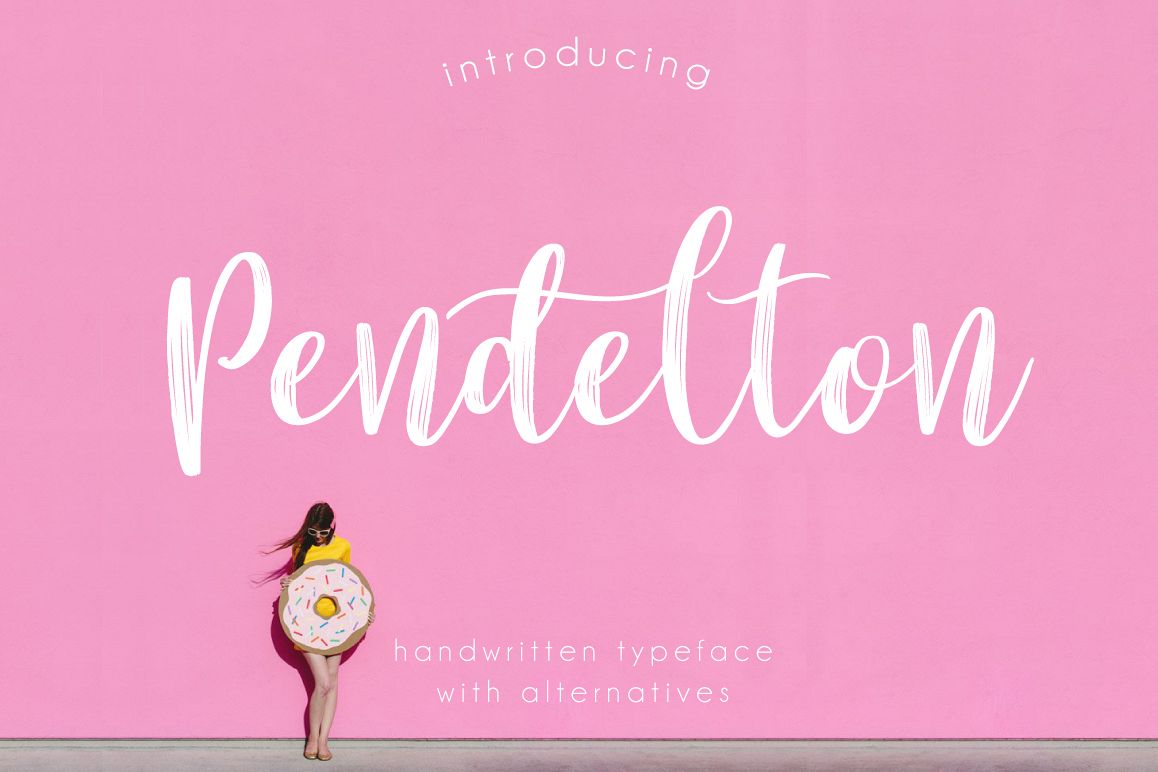
Pendelton Script
It's hand lettered tasty script font. With this type, you will see a lot of alternative letters and ligatures.
This font is ideal for branding and decorate your any project.This font are perfect for wedding invitation or your blog. Also with their help, you can create a logo or beautiful frame for your home. Or just use for your small business, book covers, stationery, marketing, magazines and more.